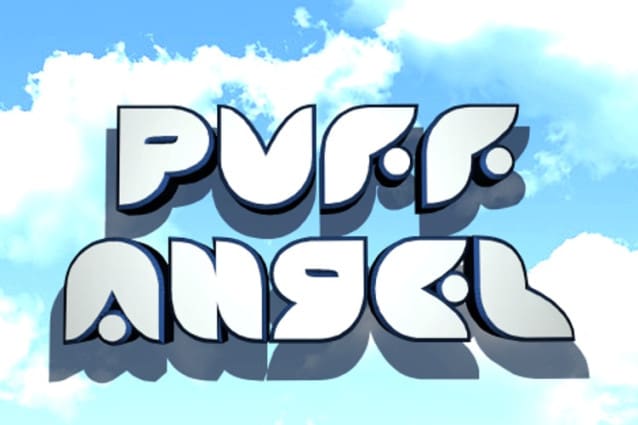
Puff Angel Font
Puff Angel Font, Suitable for any design needs : logo, branding, modern advertising design, logos, poster quote, book / cover Title, editorial design, website / blog, card, t-shirts, and any hand-lettered needs.
Classification: 3D Fonts, Decorative Fonts, Display Fonts, Playful / Fun Fonts